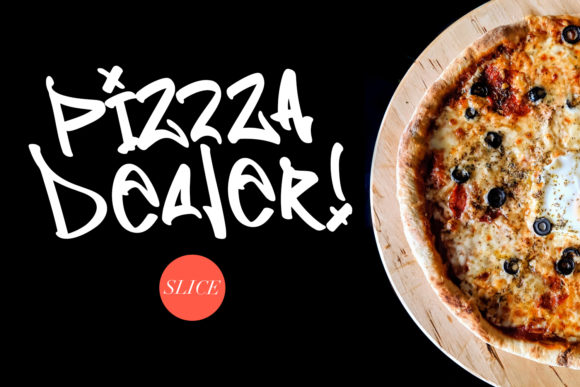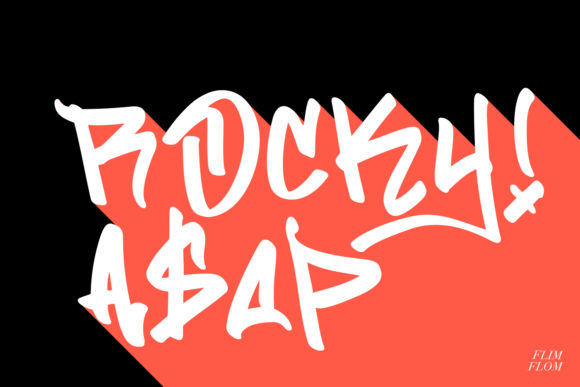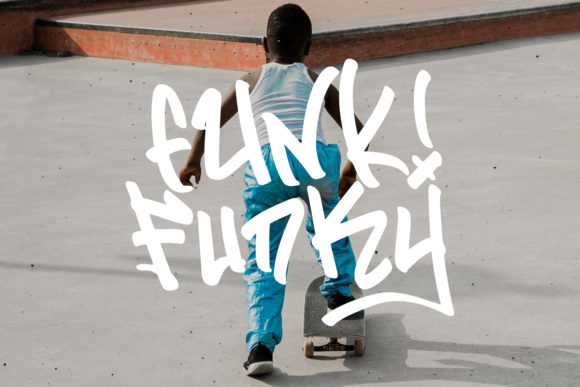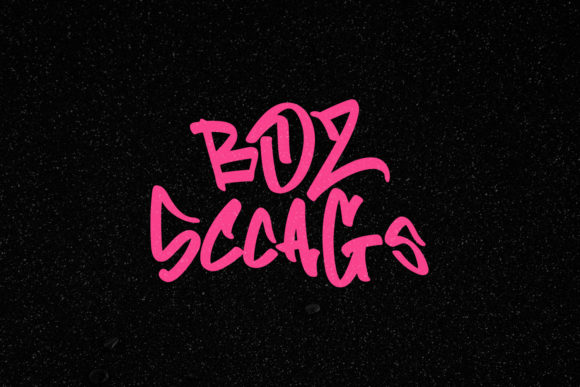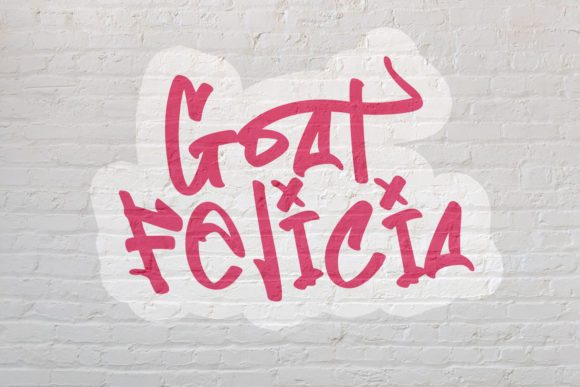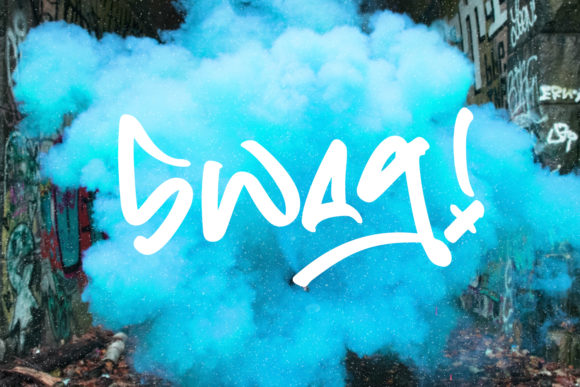
Introducing Flim Flom Font: The Ultimate Graffiti-Inspired Display Font
Are you a designer or crafter looking for a unique and stylish font to add a personalized touch to your projects? Look no further than Flim Flom Font! This cool display font features an amazing graffiti look that’s perfect for any crafting project that requires a bold and eye-catching style.
What is Flim Flom Font?
Flim Flom Font is a modern display font that’s inspired by the vibrant and edgy world of graffiti. Its unique design features bold lines, bright colors, and a playful vibe that’s sure to make your projects stand out. Whether you’re working on a DIY craft, a graphic design project, or a digital artwork, Flim Flom Font is the perfect choice for adding a touch of personality and style.
Key Features of Flim Flom Font
- Graffiti-inspired design: Flim Flom Font features a bold and colorful design that’s inspired by the world of graffiti.
- Perfect for display text: This font is designed specifically for display text, making it perfect for headlines, titles, and other prominent text elements.
- Unique and stylish: Flim Flom Font has a one-of-a-kind design that’s sure to add a touch of personality to your projects.
Uses for Flim Flom Font
Flim Flom Font is a versatile font that can be used for a wide range of projects, including:
- DIY crafts: Add a personalized touch to your DIY crafts, such as scrapbooking, card making, and other paper crafts.
- Graphic design projects: Use Flim Flom Font to add a bold and eye-catching touch to your graphic design projects, such as posters, flyers, and brochures.
- Digital art: Incorporate Flim Flom Font into your digital art projects, such as illustrations, paintings, and mixed media art.
- Sign making: Use Flim Flom Font to create eye-catching signs for your business, event, or personal project.
Tips for Using Flim Flom Font
Here are a few tips for getting the most out of Flim Flom Font:
- Use it sparingly: Flim Flom Font is a bold and attention-grabbing font, so use it sparingly to avoid overwhelming your design.
- Pair it with a simple font: Pair Flim Flom Font with a simple font to create contrast and add visual interest to your design.
- Experiment with colors: Flim Flom Font looks great in bright, bold colors, so don’t be afraid to experiment and find the perfect color for your project.
Flim Flom Font is a unique and stylish font that’s perfect for designers and crafters who want to add a personalized touch to their projects. With its graffiti-inspired design and bold, eye-catching style, this font is sure to make your projects stand out. Whether you’re working on a DIY craft, a graphic design project, or a digital artwork, Flim Flom Font is a great choice for adding a touch of personality and style.